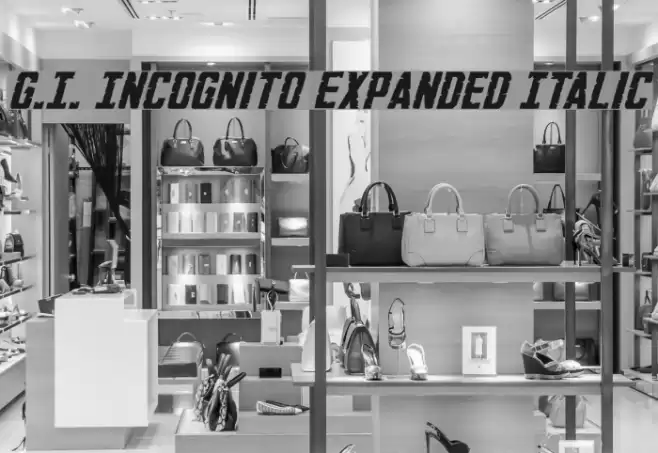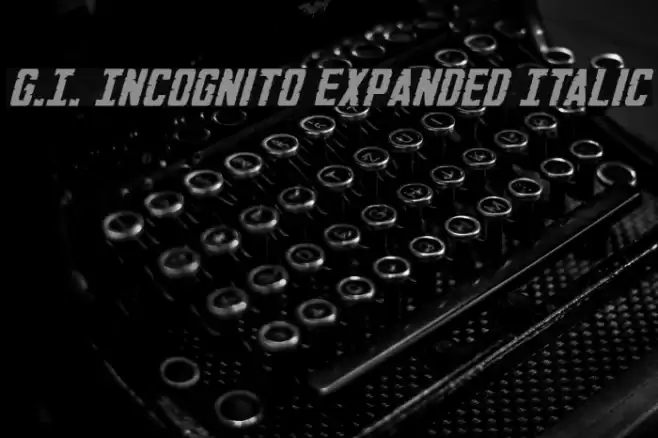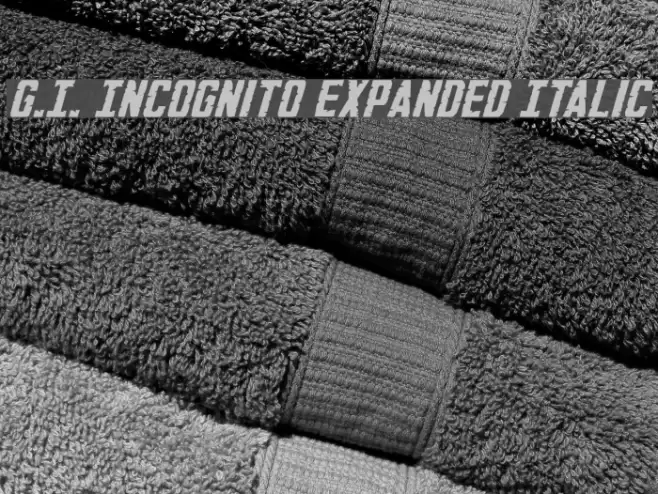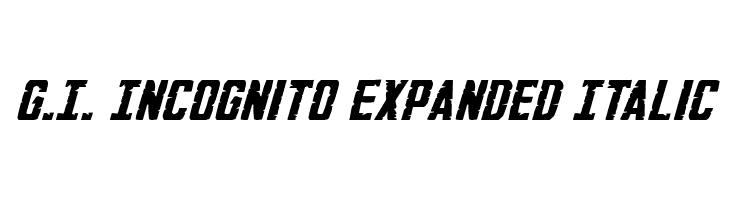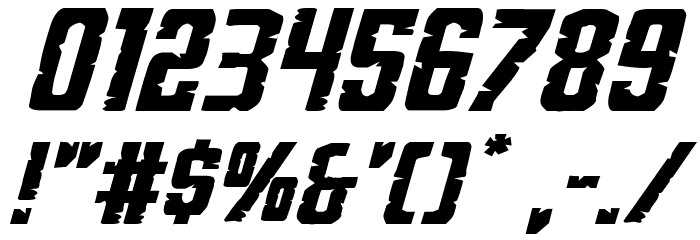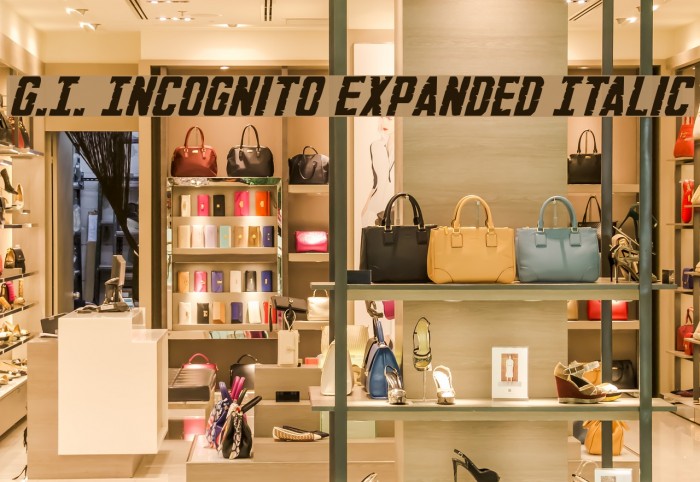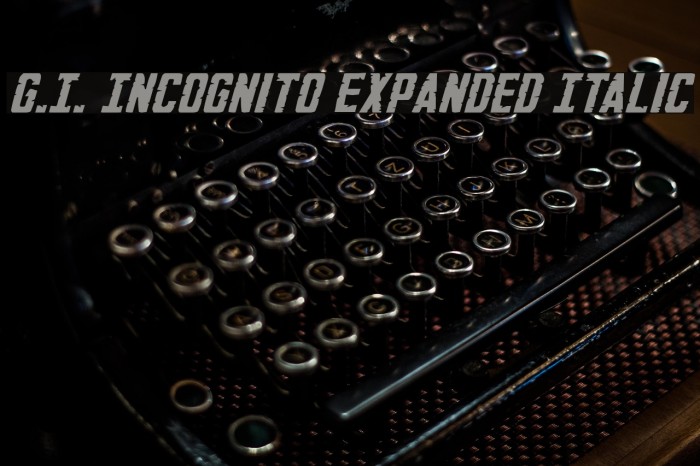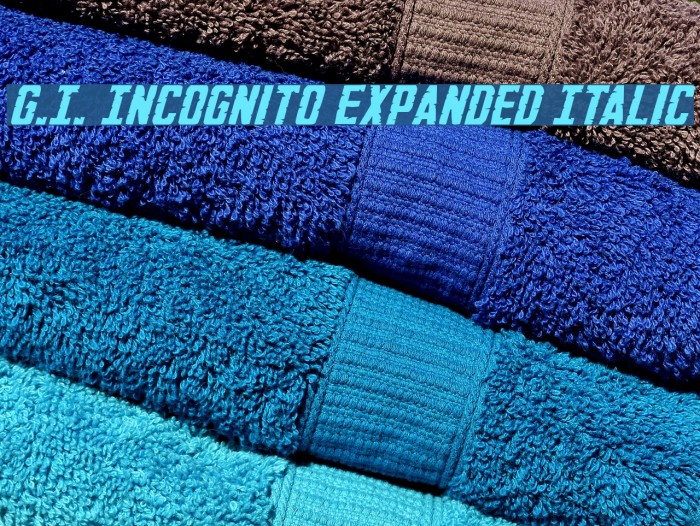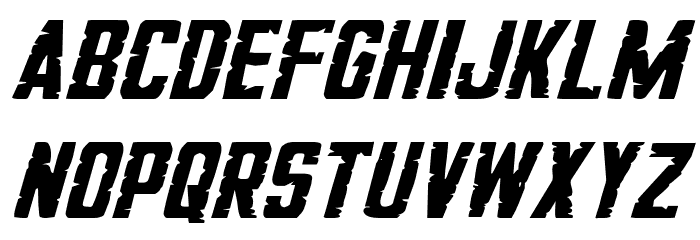
G.I. Incognito Expanded Italic Font
G.I. Incognito Expanded Italic Description
This font features a bold and dynamic style with an italic slant, giving it a sense of movement and urgency. The characters are expanded, providing a wide stance that enhances readability while maintaining a strong presence. The design incorporates sharp, angular edges and a slightly distressed texture, adding a rugged and edgy feel. This combination of features makes it suitable for impactful and attention-grabbing designs. The font's unique style is ideal for projects that require a bold statement, such as sports branding, action movie posters, or dynamic advertising campaigns.
A bold, expanded, and italic font with a rugged, dynamic style from Distorted Eroded fonts.
- Proposed Projects: Ideal for sports branding, action movie posters, dynamic advertising campaigns, and any project needing a bold, impactful statement.
- Overall Style: Dynamic and Edgy